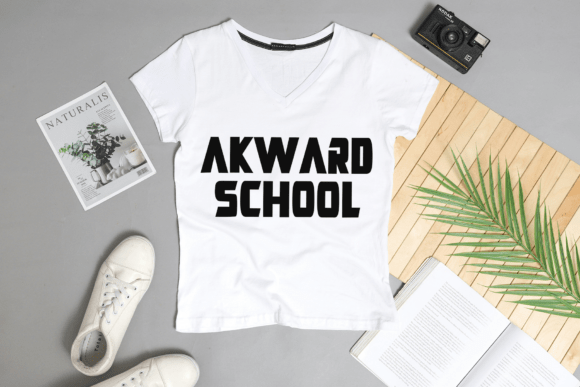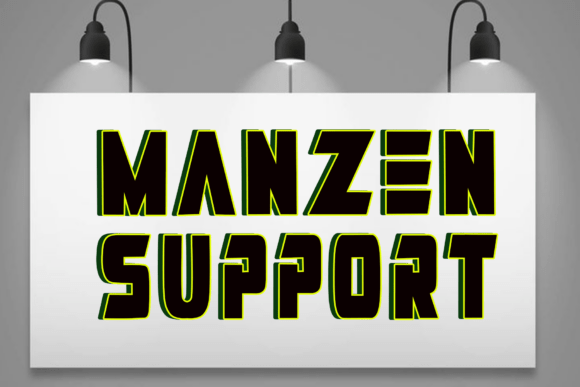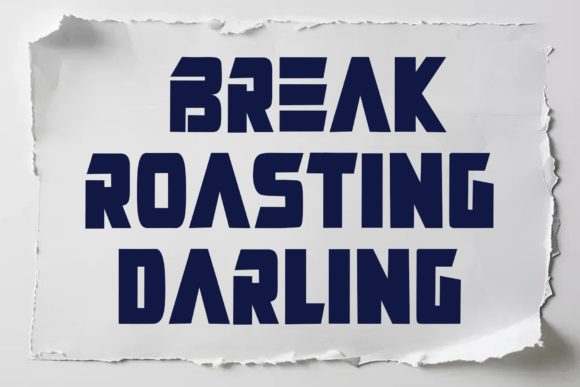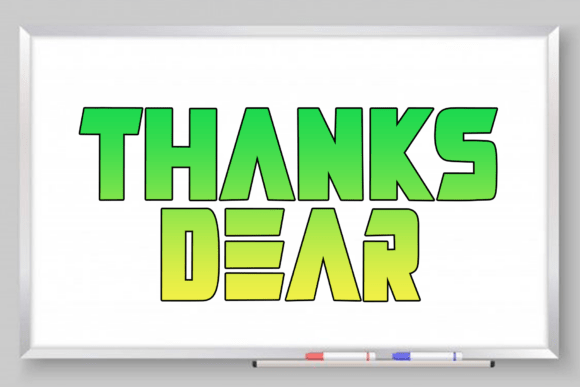
Introduction to Rebeling Font
Have you ever found yourself staring at a blank page, searching for the perfect font to bring your creative project to life? It’s that moment of frustration, when every font seems to fall short, that makes you wish for a design resource that’s both elegant and approachable.
Enter the Rebeling Font, a stunning display font designed to add warmth and clarity to your designs. With its clean structure and friendly style, it’s the perfect solution for branding, headlines, and everyday projects. Whether you’re working on a high-quality print campaign or a digital design with a transparent background, Rebeling Font is sure to impress.
As a valuable addition to any designer’s toolkit, the Rebeling Font offers a unique balance of readability and charm, making every message feel genuine and inviting. And the best part? It’s available for free download, making it an essential resource for designers of all levels.
Key Features of Rebeling Font
- High-quality, professional font suitable for creative projects and designs.
- Comes in a transparent background, allowing for easy customization and layering.
- Available in multiple font sizes and resolutions, including 72 dpi and 300 dpi, to accommodate various design needs.
- Unique, bold, and modern design makes it perfect for headings, titles, and other prominent design elements.
- Perfect for designers looking for a high-quality, free font to enhance their creative projects and designs.
Honest Review: Rebeling Font
As a designer, I’m always on the lookout for new design resources to elevate my creative projects. The Rebeling Font caught my eye with its bold, edgy aesthetic. Here’s my honest review.
- The Rebeling Font’s high quality design makes it perfect for any design project that needs a touch of rebellion.
- The font comes with a transparent background, making it easy to customize and integrate into any design.
- The font’s bold style may not be suitable for all design projects, particularly those requiring a more subtle or elegant look.
Overall, I’m impressed with the Rebeling Font’s high quality design and versatility. It’s a great addition to any designer’s toolkit, and the free download option makes it an attractive choice for creative projects on a budget. With its bold, edgy style, the Rebeling Font is perfect for designers who want to add a touch of rebellion to their work.
Tips for Getting the Most Out of Rebeling Font
Rebeling Font is a high-quality, free download that can be used for a wide range of creative projects. To get the most out of it, use it in combination with other design resources to create a unique and eye-catching design. Experiment with different font sizes, colors, and styles to find the perfect look for your project.
Rebeling Font is perfect for designers working on a creative project that requires a unique and attention-grabbing font. Some common use cases include:
- Designing a logo or branding materials
- Creating a social media post or advertisement
- Designing a brochure or flyer